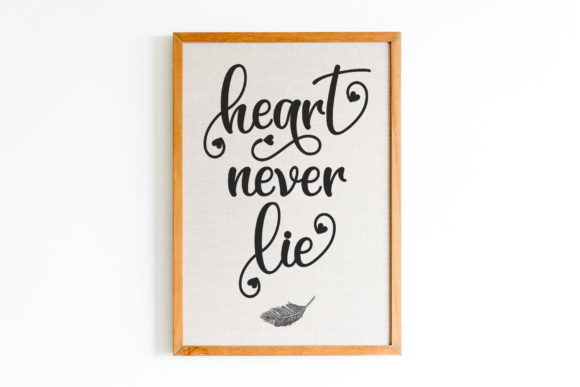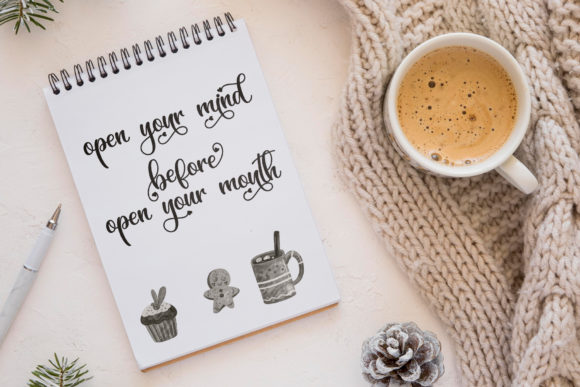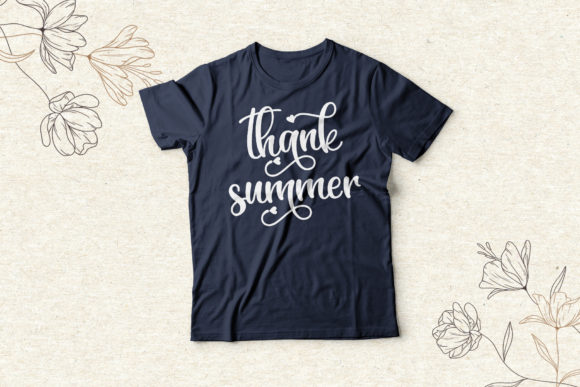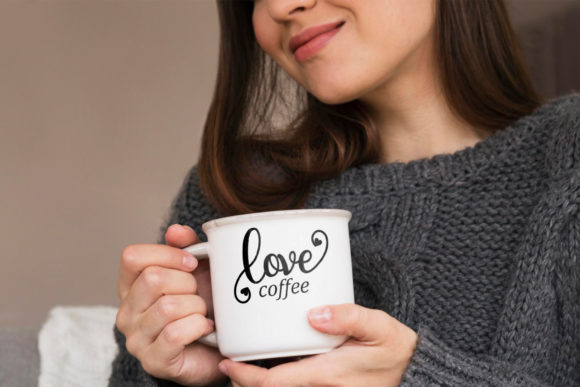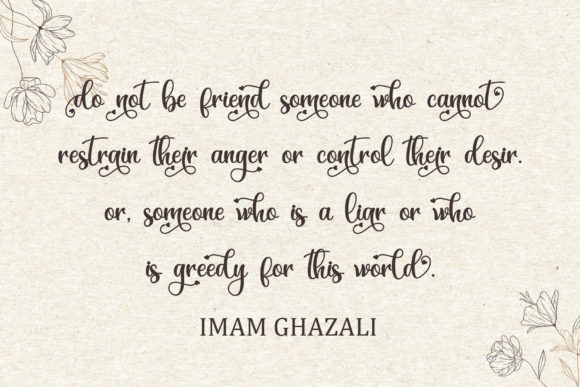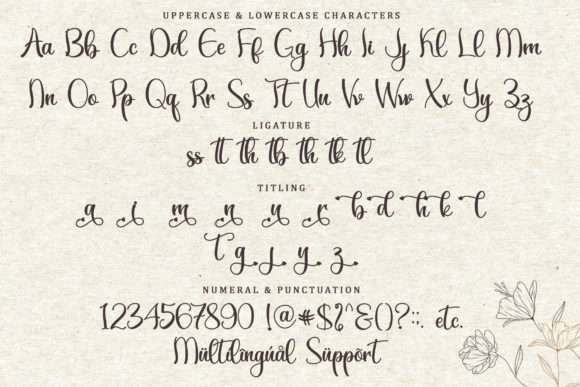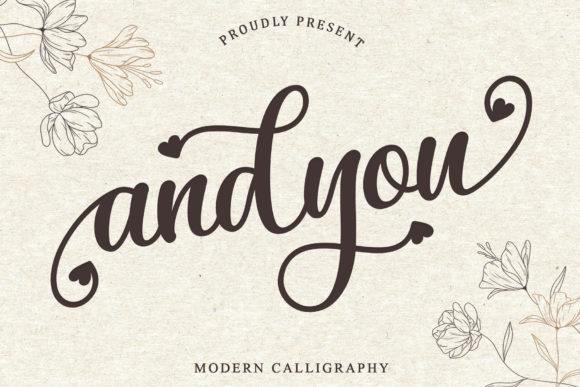
Introducing Andyou Font: Elevate Your Designs with Elegance and Class
In the world of typography, a font can make or break a design. For those seeking to add a touch of sophistication and refinement to their creations, look no further than the Andyou Font. This lovely and delicate script font is specifically crafted to bring a beautiful and refreshing look to your designs, making it an ideal choice for designers and crafters alike.
The Beauty of Andyou Font
Andyou Font is a true gem in the realm of typography. Its elegant and classy design makes it perfect for a wide range of applications, from wedding invitations and branding materials to packaging and digital media. The font’s delicate features and smooth lines create a sense of luxury and refinement, adding a touch of sophistication to any design.
One of the standout features of Andyou Font is its PUA (Private Use Area) encoding. This means that users can access all of the font’s glyphs and swashes with ease, allowing for greater flexibility and creativity in design. With PUA encoding, you can effortlessly navigate the font’s extensive character set, including alternates, ligatures, and decorative swashes, to create unique and visually stunning designs.
Andyou Font is an excellent choice for designers and crafters looking to elevate their work. Whether you’re creating:
- Digital media, including social media graphics and blog headers
the Andyou Font is sure to bring a level of elegance and sophistication that sets your work apart.
Key Features of Andyou Font
Here are just a few of the key features that make Andyou Font an exceptional choice:
- Elegant and delicate script design: Perfect for creating sophisticated and refined designs
- PUA encoded: Easy access to all glyphs and swashes
- Extensive character set: Includes alternates, ligatures, and decorative swashes
- Flexible and versatile: Suitable for a wide range of design applications
Tips for Using Andyou Font
To get the most out of Andyou Font, here are a few tips:
- Experiment with different sizes and styles: Find the perfect balance of elegance and readability for your design
- Mix and match glyphs and swashes: Create unique and visually interesting designs
- Pair with complementary fonts: Add contrast and visual interest to your design
In conclusion, Andyou Font is a beautiful and elegant script font that is sure to elevate your designs to new heights. With its PUA encoding, extensive character set, and delicate design, it’s the perfect choice for designers and crafters looking to add a touch of sophistication and refinement to their work. So why wait? Discover the beauty of Andyou Font today and take your designs to the next level!